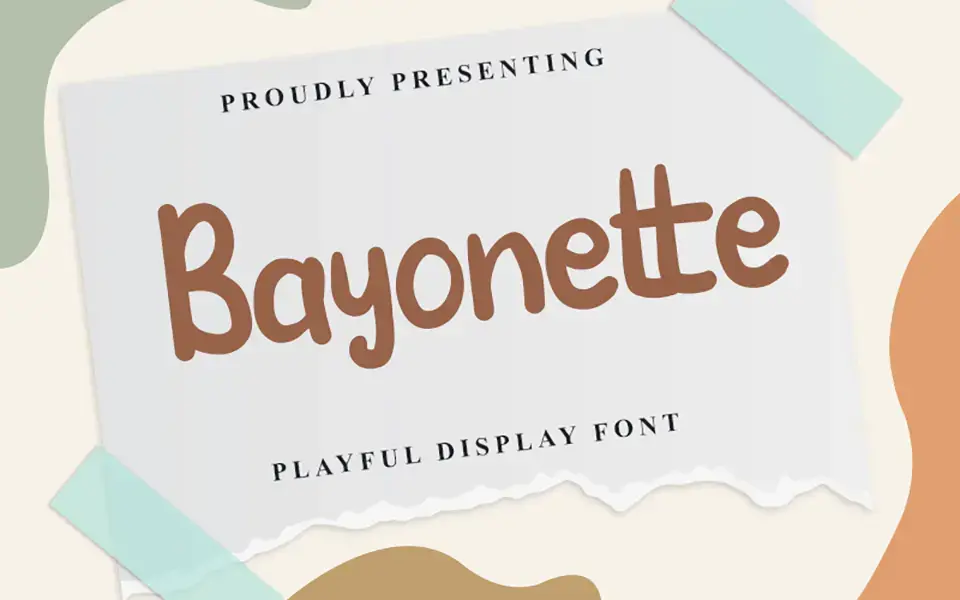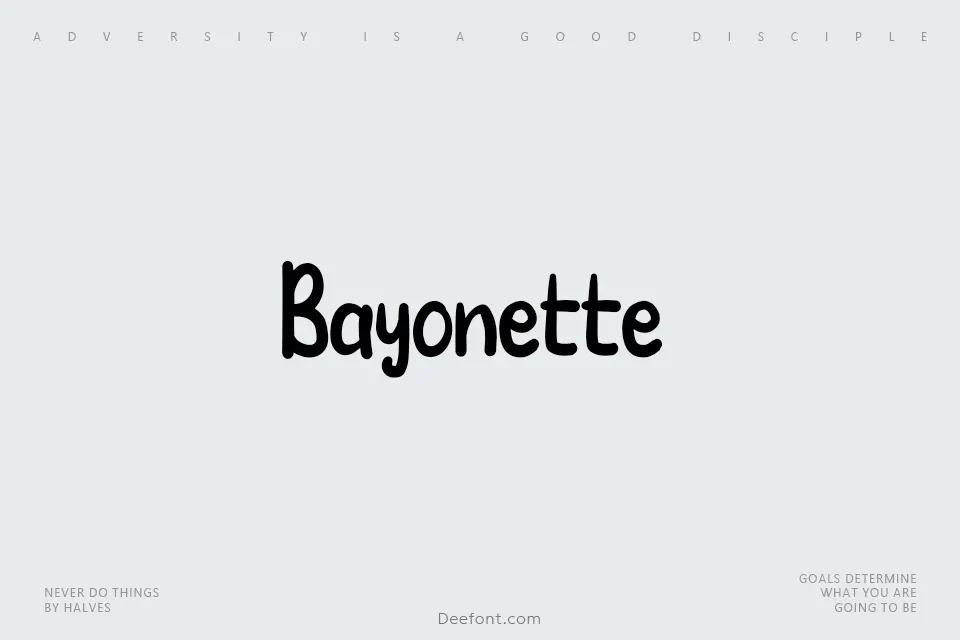
Bayonette Font
Bayonette is a fun and playful handwritten script typeface characterized by bold, rounded letterforms with smooth strokes and whimsical corners. The font delivers a cheerful, casual aesthetic perfect for seasonal themes, festive projects, and creative designs. Its friendly, informal style works exceptionally well for posters, packaging labels, social media graphics, greeting cards, and holiday-themed branding. The font maintains excellent readability while conveying a youthful, approachable personality ideal for decorative display purposes, product packaging, editorial designs, and crafting projects across digital and print mediums.